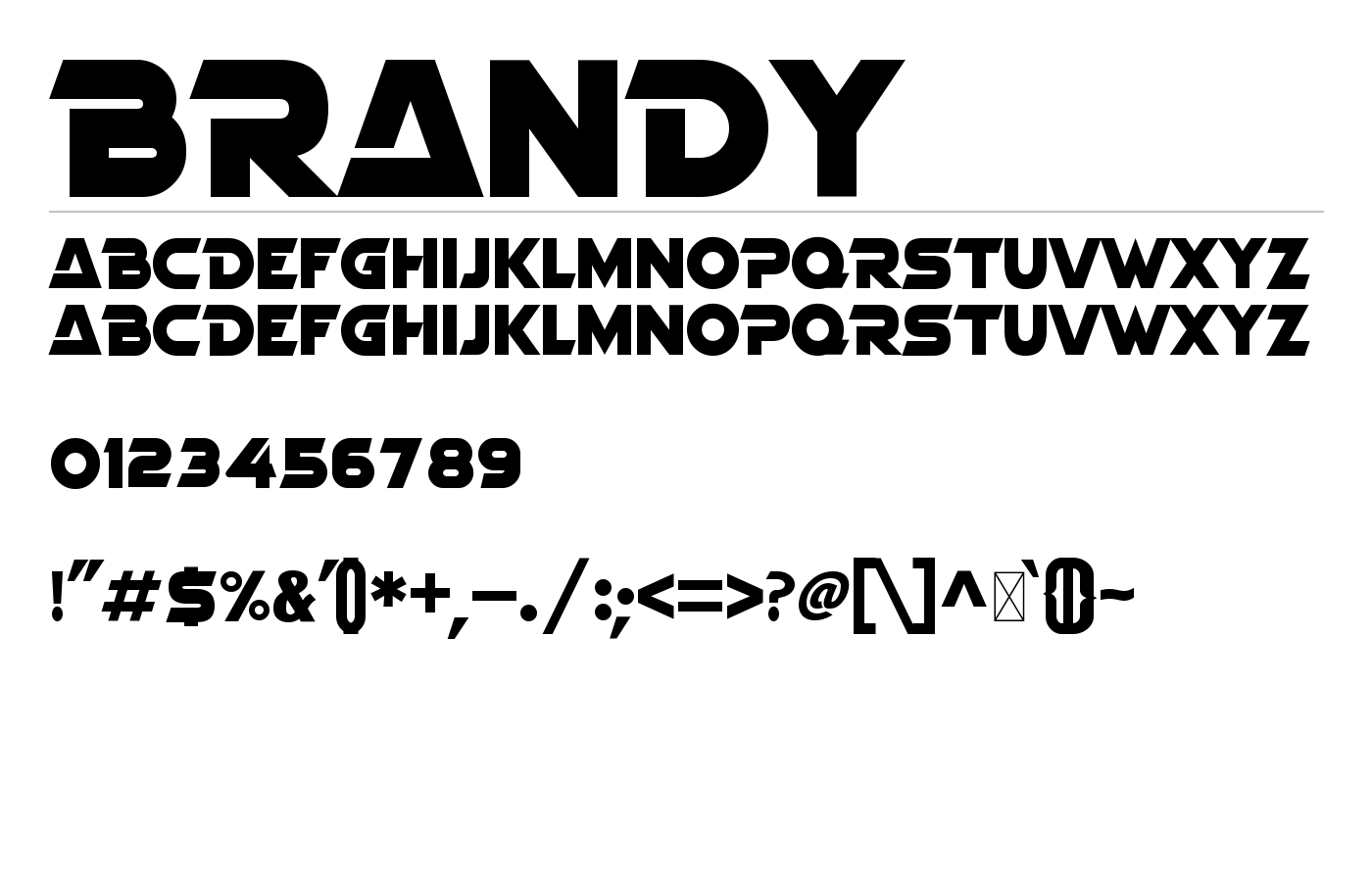
Brandy is a bold, geometric sans serif font with strong, angular shapes and a futuristic feel. Its heavy weight and sharp, clean lines make it ideal for striking headlines, logos, and branding that seek a modern, powerful presence. This font works well in contexts where a bold, contemporary style is needed to grab attention and convey confidence.
Brandy Font